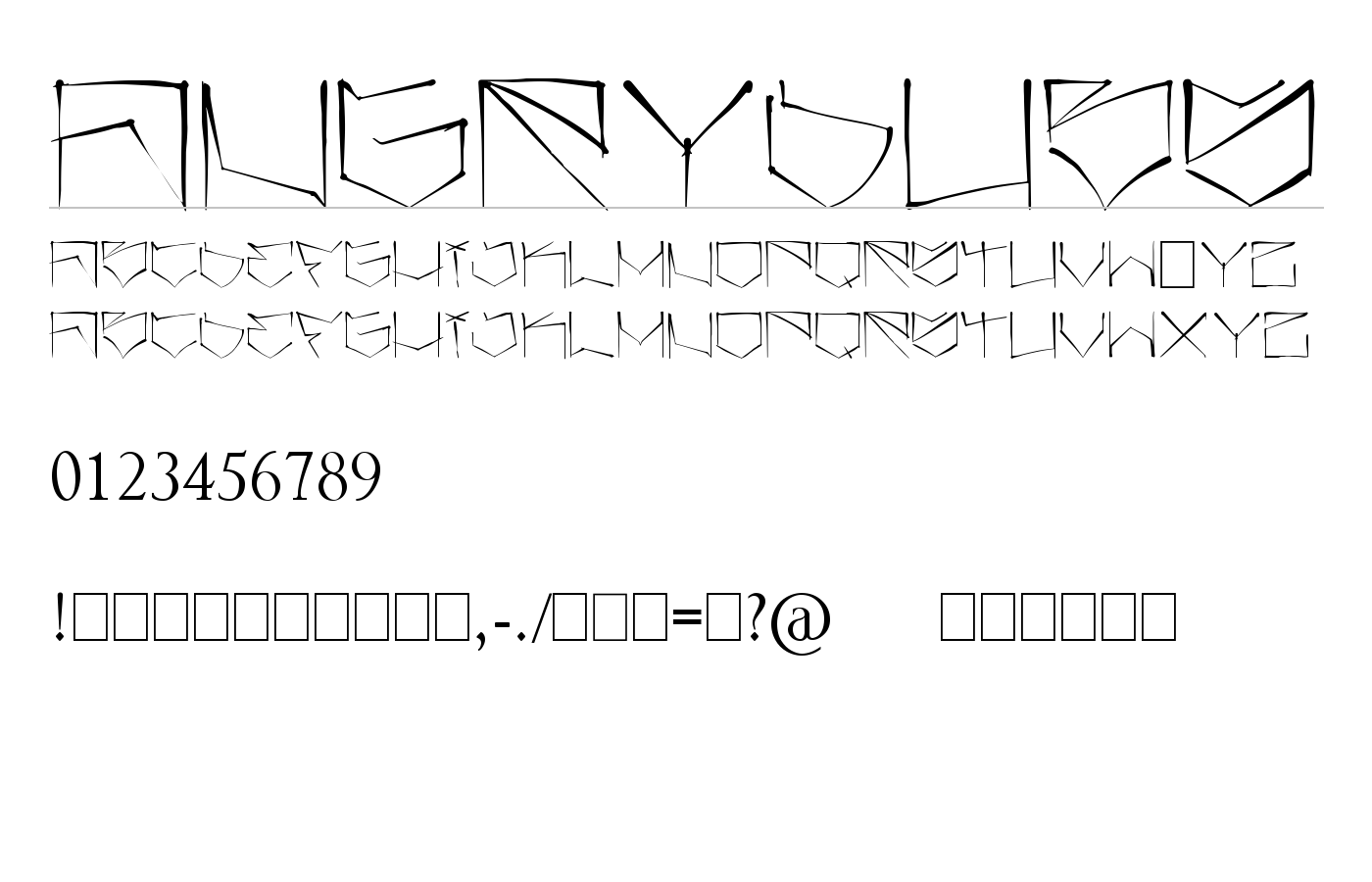
Angrydubs is a highly stylized, thin, and angular sans serif font characterized by sharp, geometric strokes that create a modern and edgy feel. Its uneven line weights and unconventional letterform shapes give it an artistic, almost hand-drawn quality, making it perfect for creative projects that seek a distinctive and bold personality. This font is best suited for headlines, posters, or branding that wants to stand out with a futuristic and avant-garde look.
angrydubs Font
About angrydubs Font